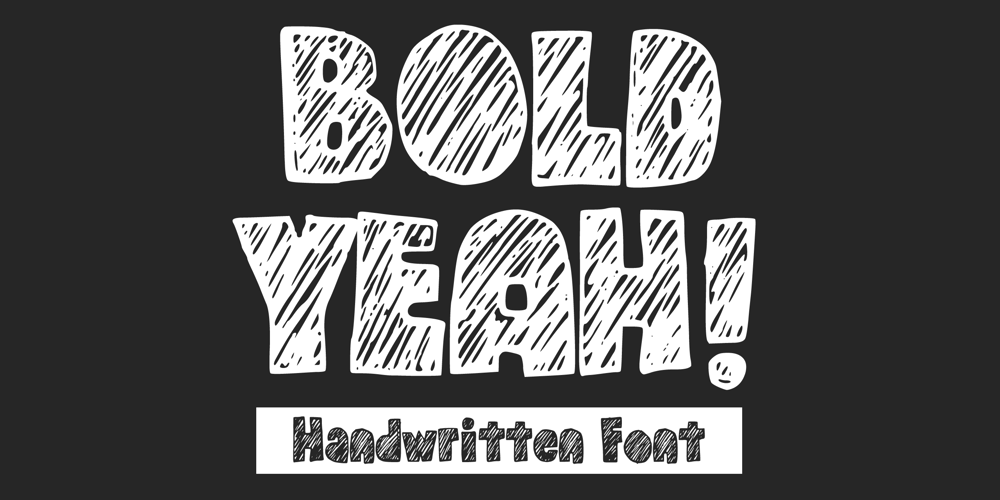
Bold Yeah Font Family was designed by Gabriel Valentinus and published by Mvmet. Bold Yeah contains 1 styles and family package options. Bold Yeah is a bold and rough hand-drawn display font. It works great for creating cool designs that scream for attention. It’s ideal for anything ranging from t-shirts, book designs, restaurant menu, blog writing, greeting cards to stickers, or anything that needs a casual touch. Fall in love with its incredibly cool style, and use it to create lovely designs!